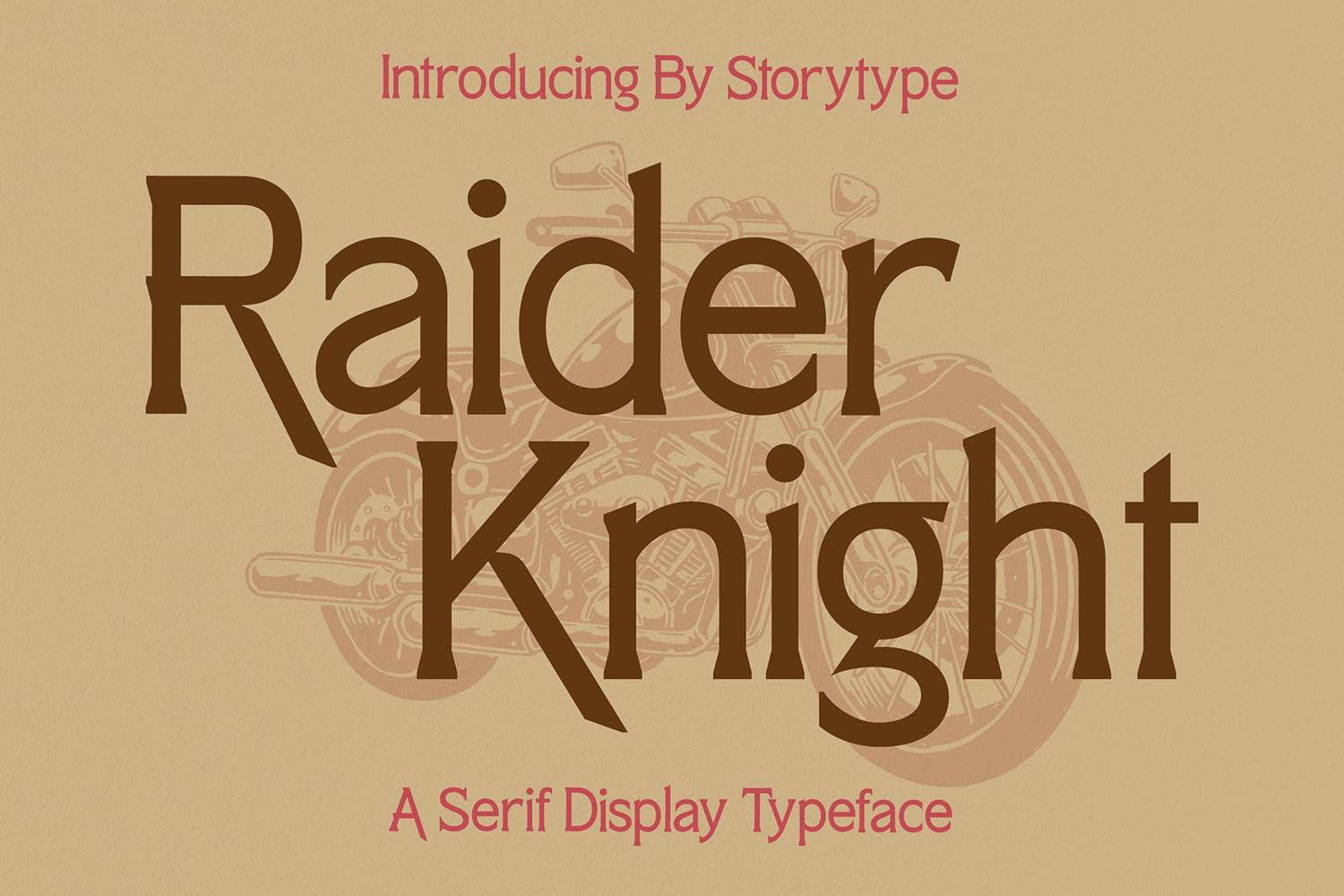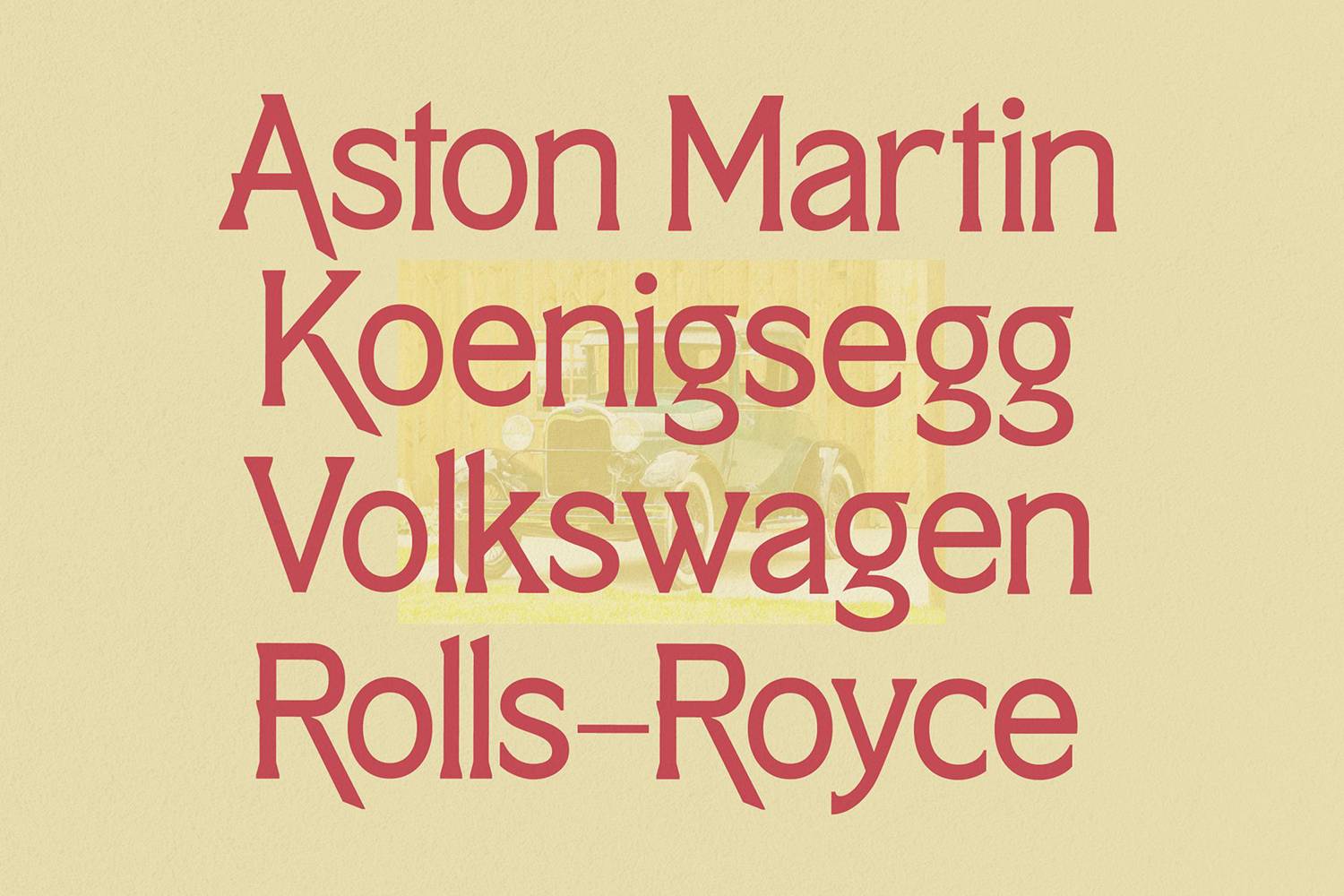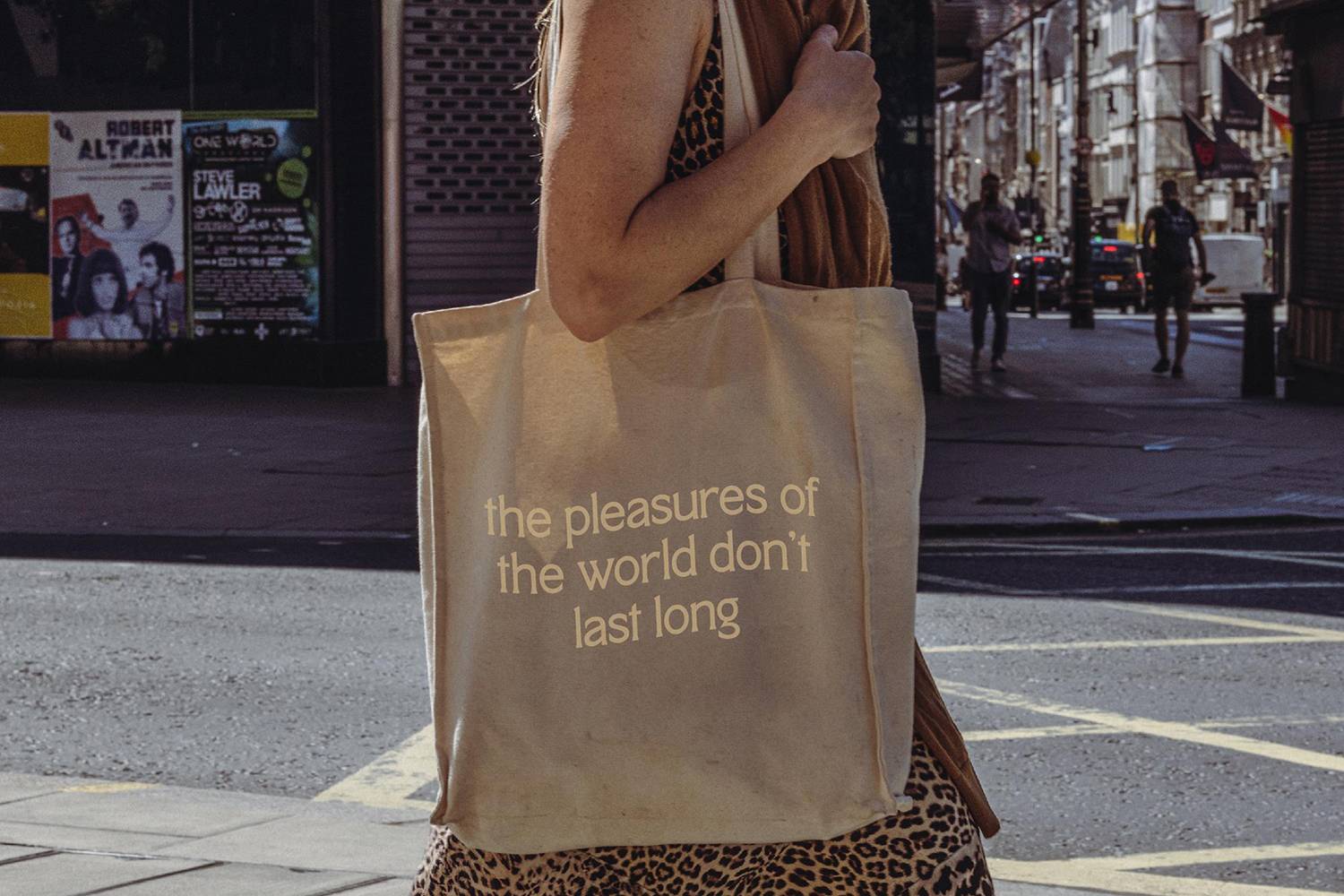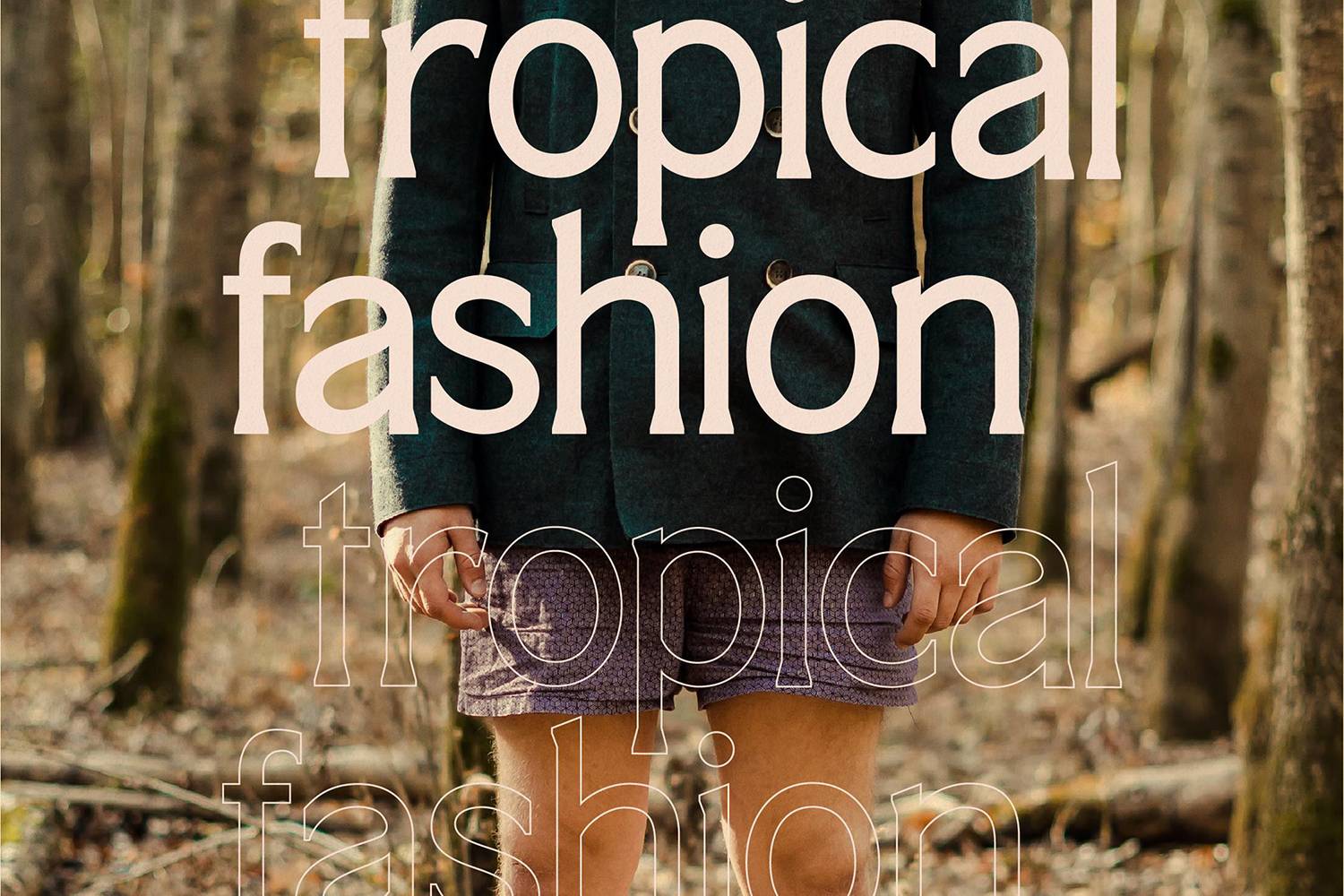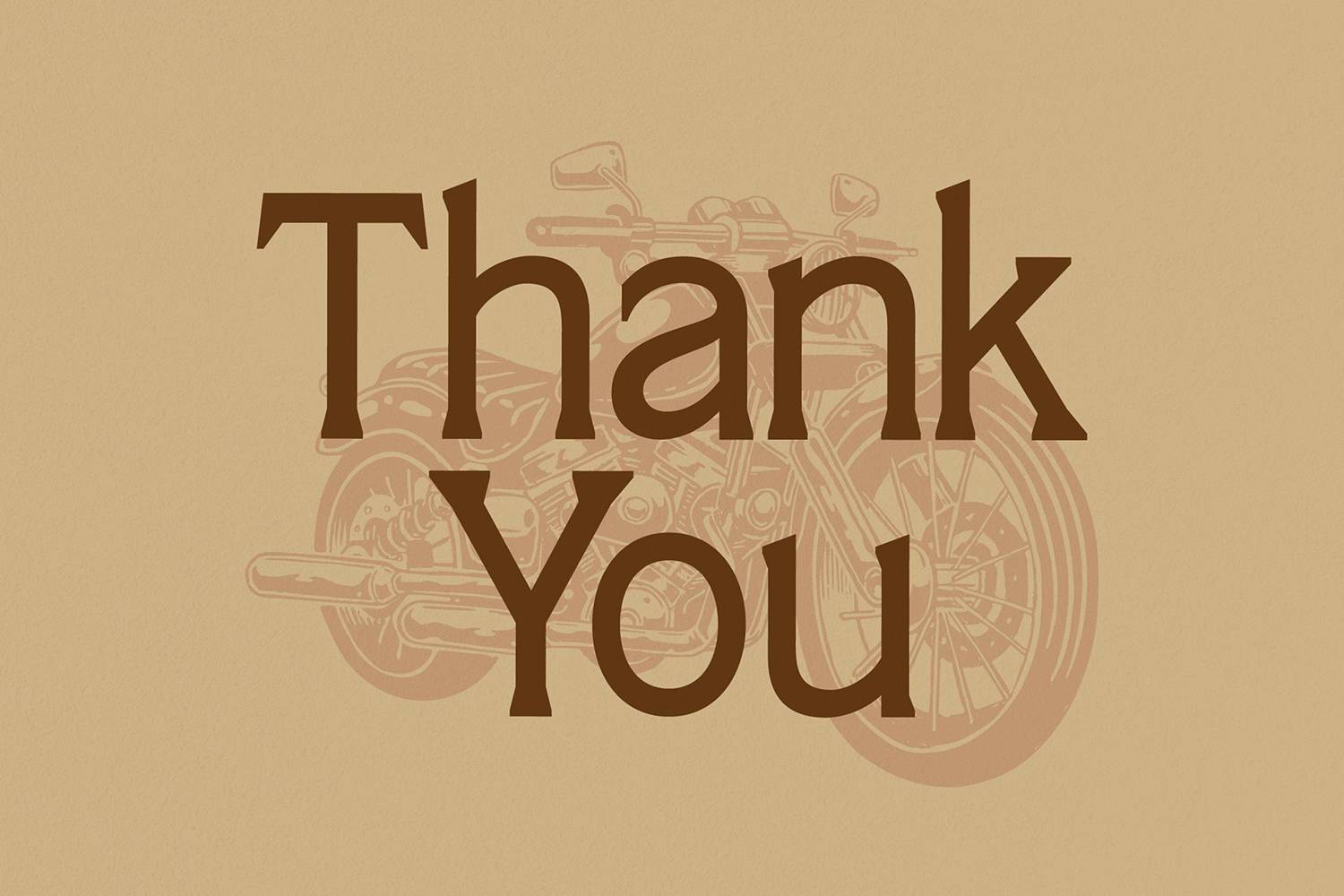
Raider Knight is a serif font with a distinctive, slightly condensed structure and medium contrast strokes that balance a classic feel with modern sharpness. Its tall x-height and unique letterforms add character and readability, making it ideal for elegant branding, editorial headlines, and sophisticated packaging. This font conveys a refined, serious mood that suits projects seeking a timeless yet contemporary voice.
Raider Knight Font